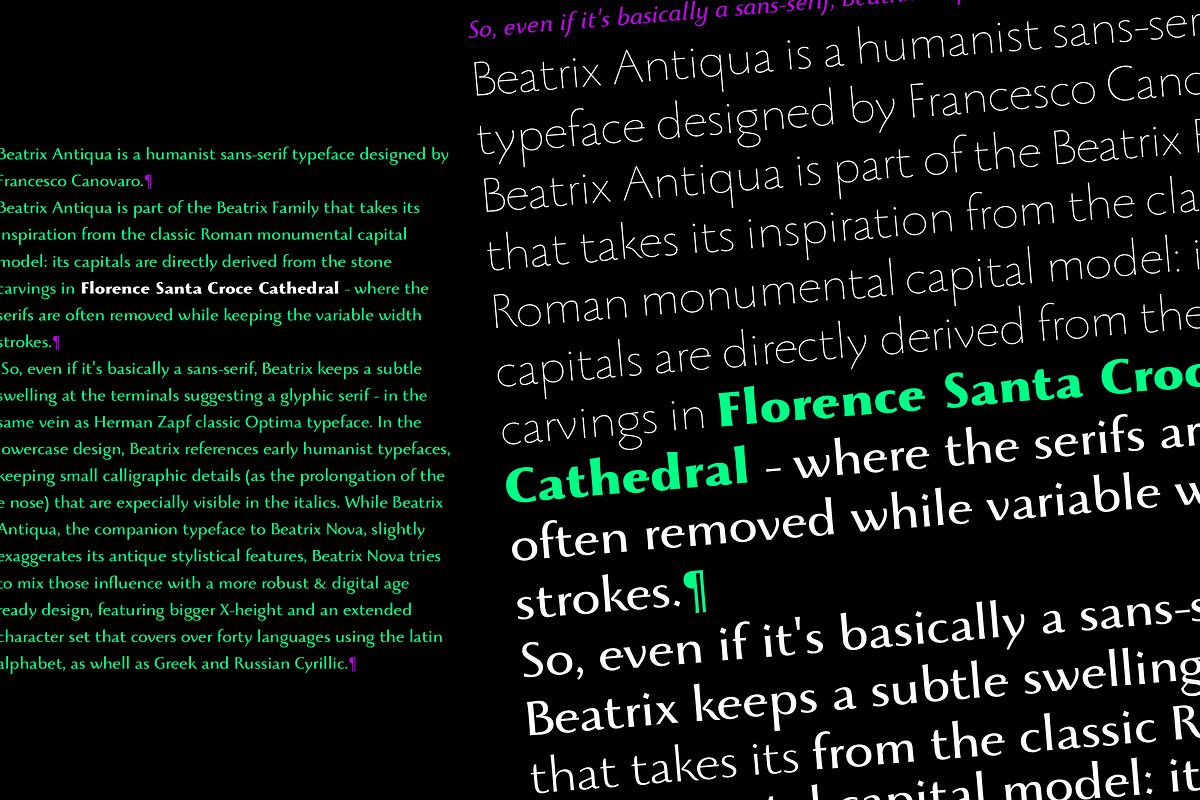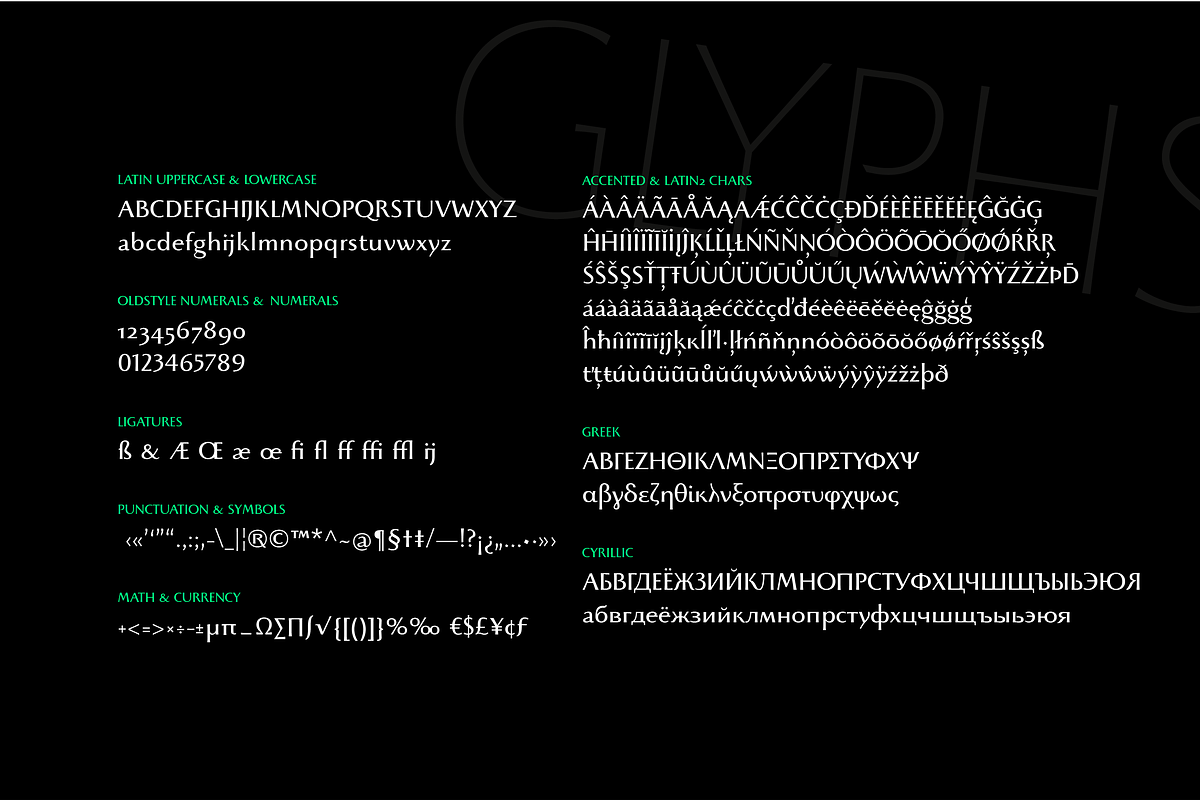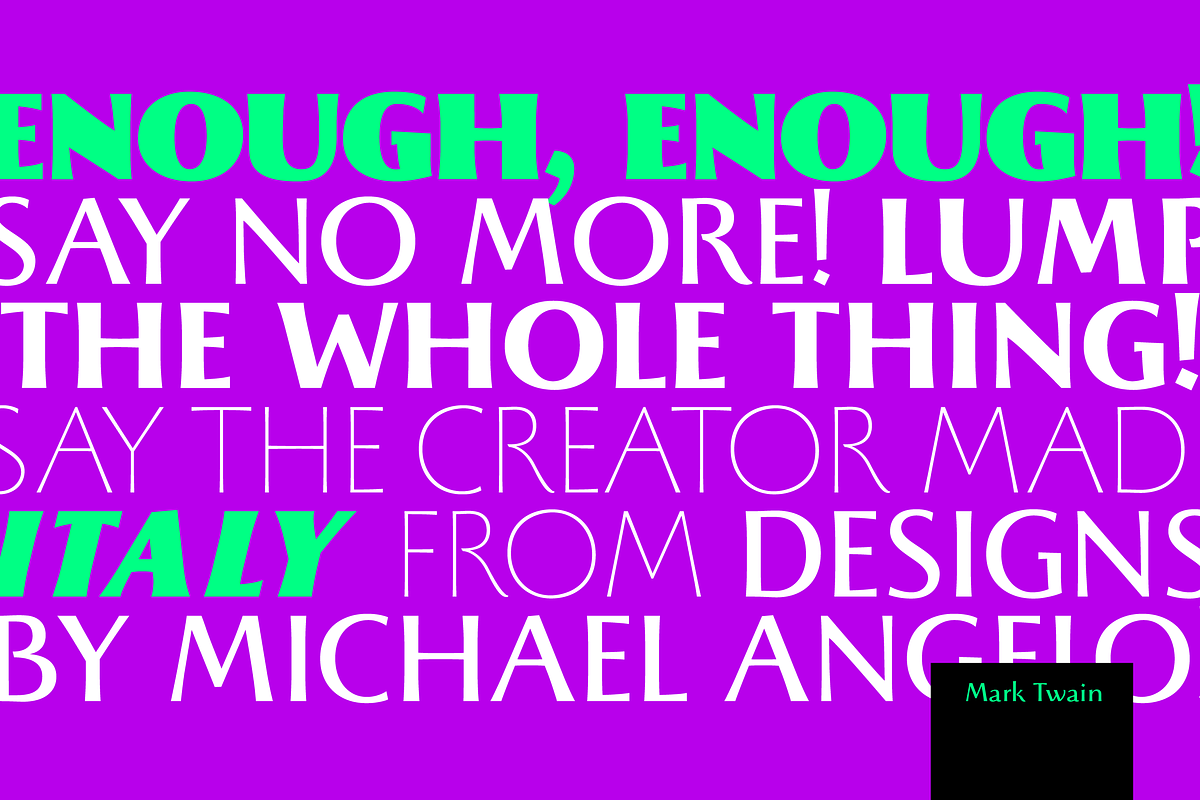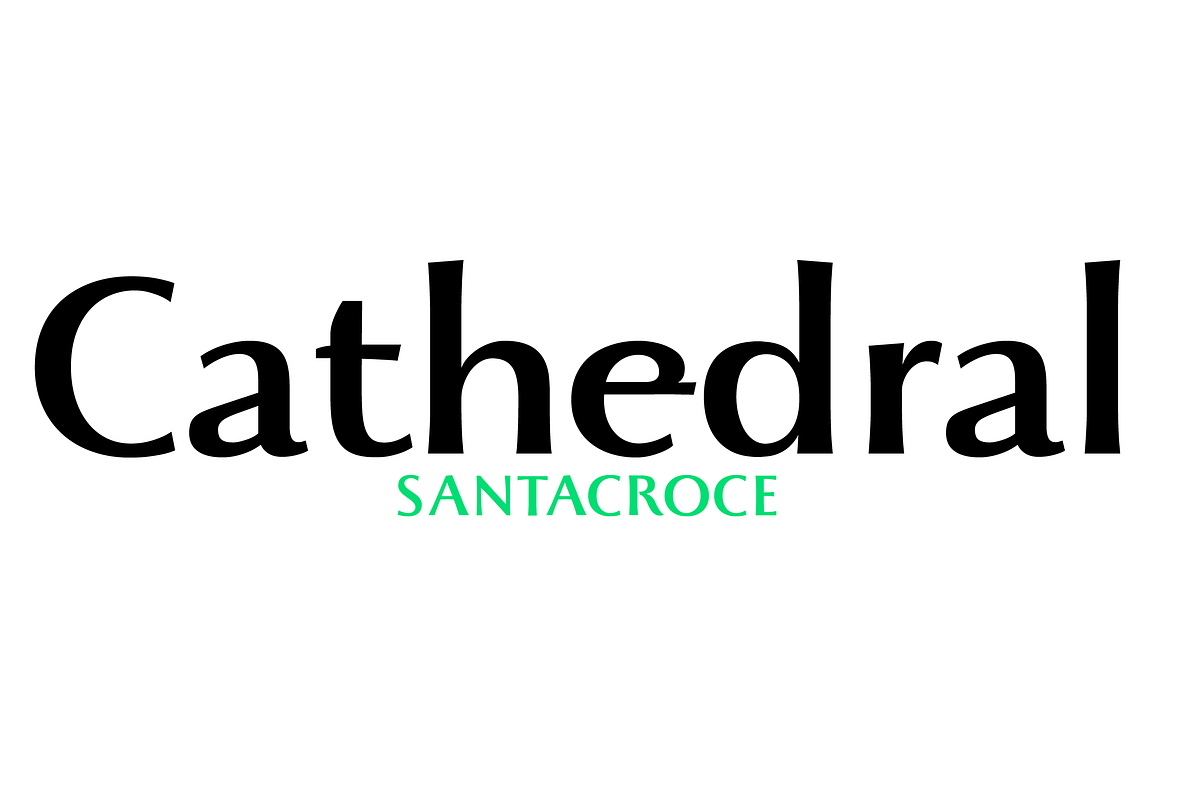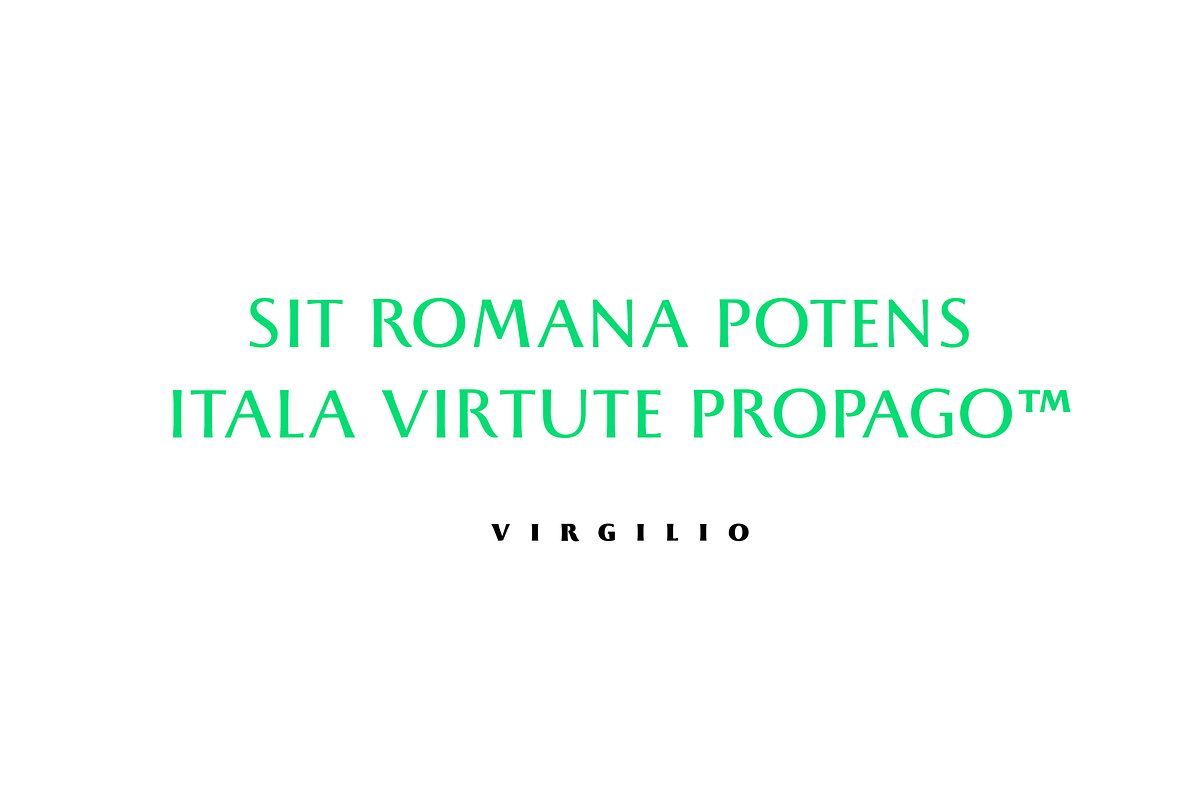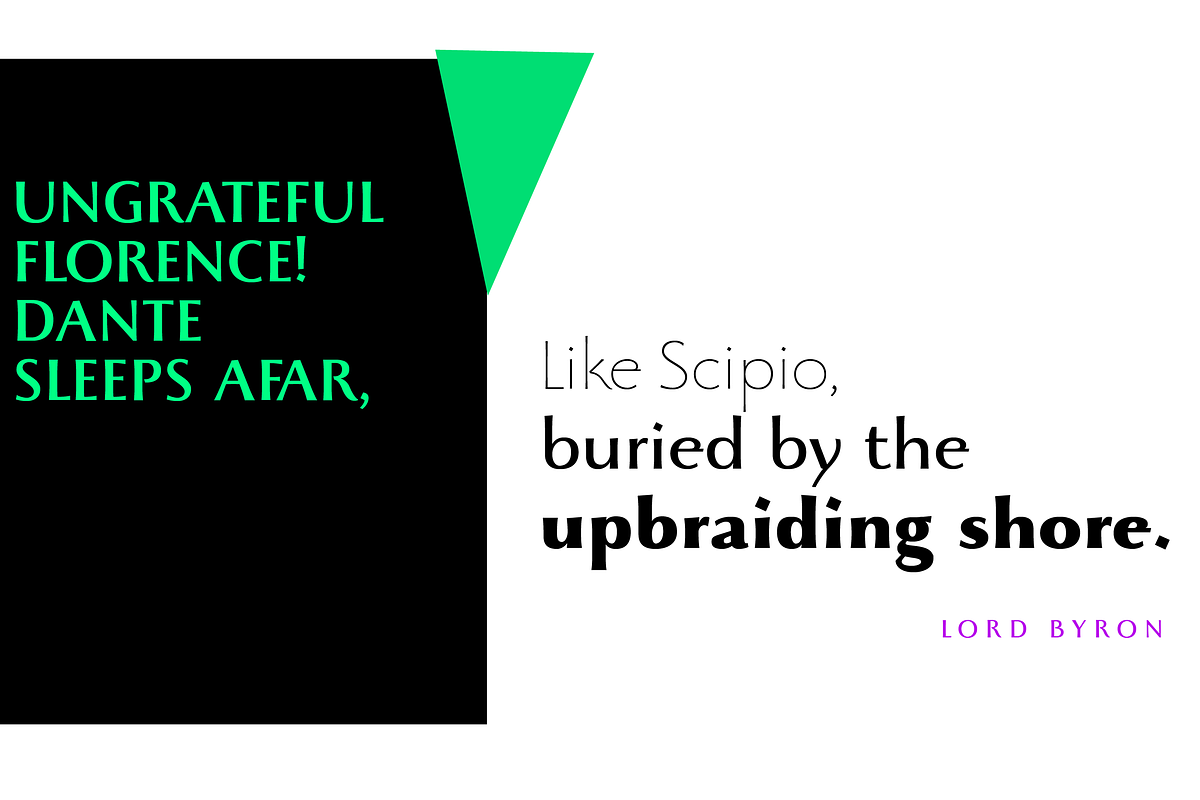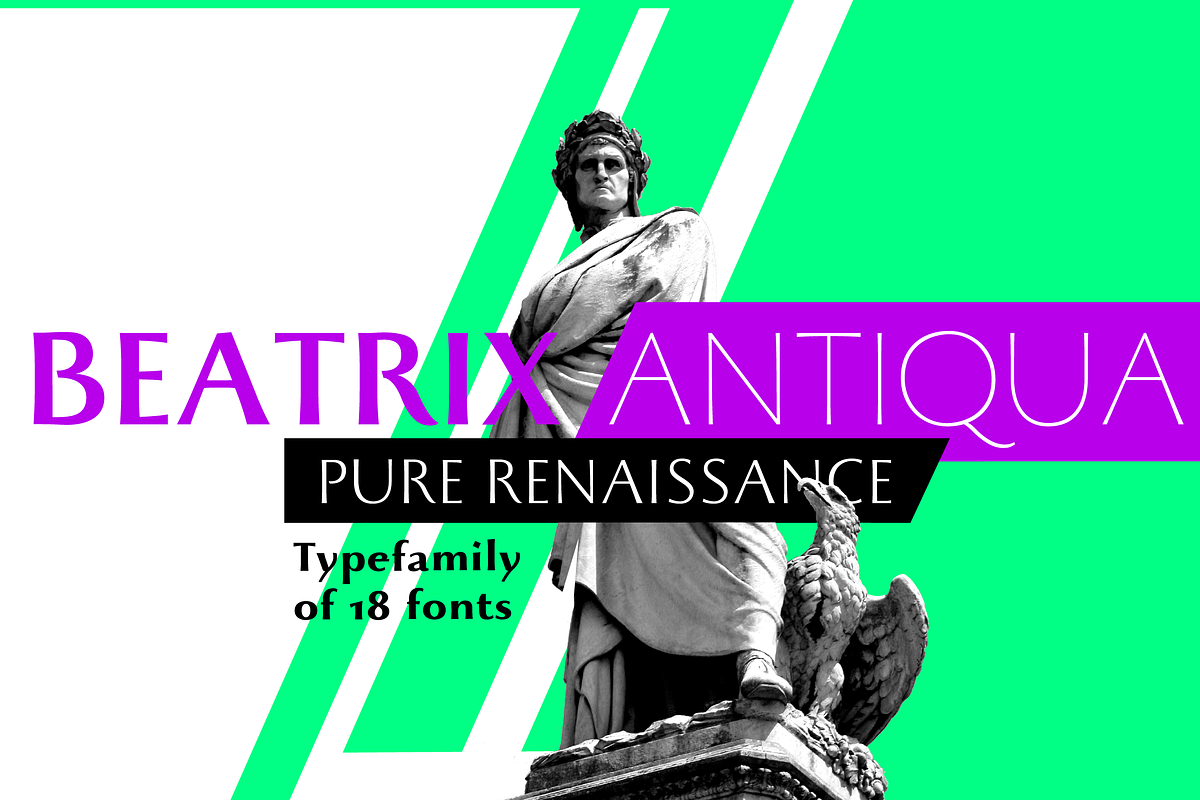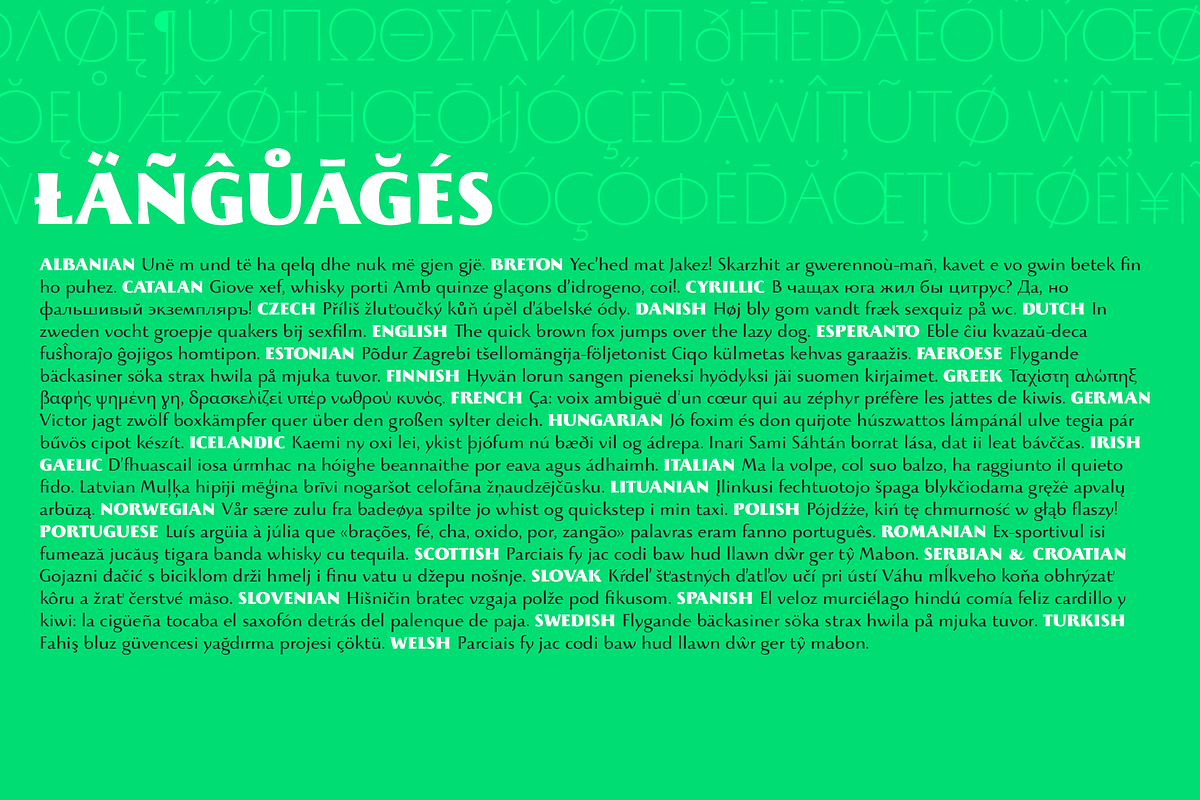
Beatrix Antiqua - 18 fonts
Beatrix Antiqua - 18 fonts by Zetafonts is a font selected for branding, posters, packaging, typography.
- In the lowercase design, Beatrix references early humanist typefaces, keeping small calligraphic details (as the prolongation of the e nose)
Why Beatrix Antiqua - 18 fonts is worth a look
Beatrix Antiqua - 18 fonts by Zetafonts fits naturally into Branding, posters, packaging, typography.